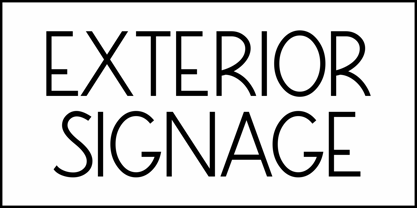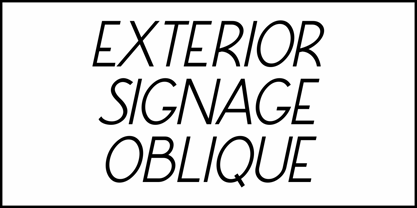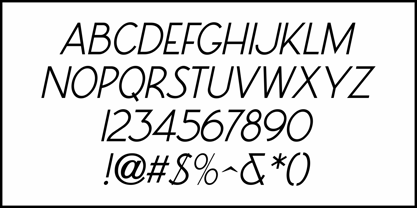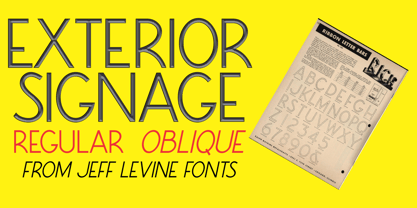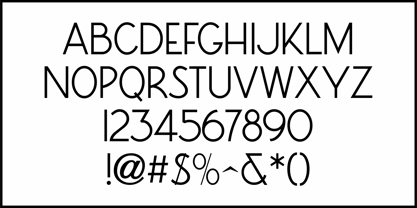
Exterior Signage JNL
by Jeff Levine
Line drawing examples of "ribbon style" (monoline) fabricated metal sign letters was found within the pages of the 1960 catalog from Ralph Watkins Metalcraft (of Chicago). While the Art Deco influences in this lettering style suggest this design may have been in use by the company for years,it was still contemporary in 1960.
This inspired Exterior Signage JNL, which is availble in both regular and oblique versions.